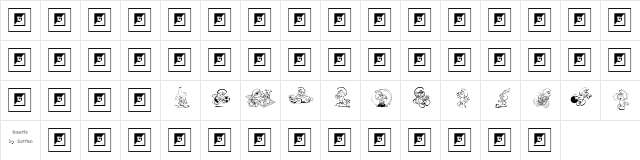
Smurf Regular
Design Context for Smurf Typeface
Smurf is a composed and adaptable typeface that performs quietly and consistently across a wide range of design contexts.